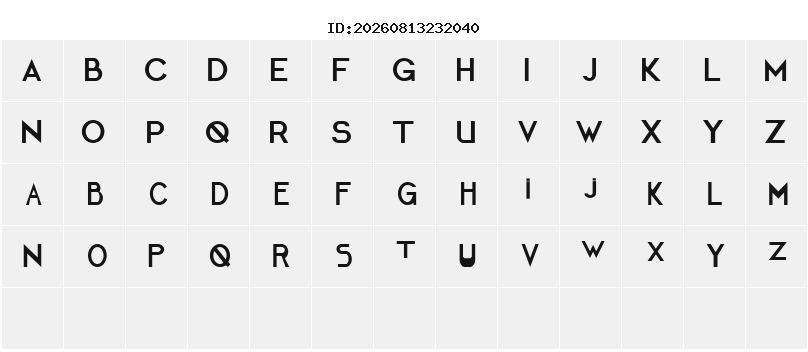
prayogo.ttf is a modern, elegant sans-serif font designed for ultimate readability and visual harmony. Perfect for branding, headlines, web design, and print materials.